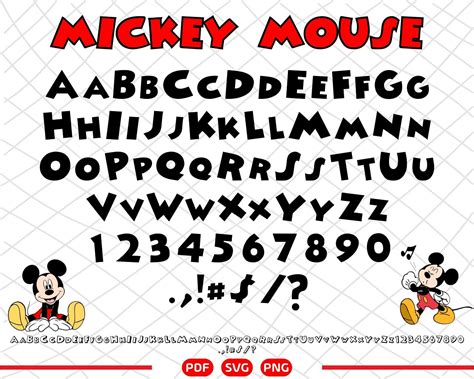
Free Mickey Mouse Font. Web who’s the leader of the club that’s made for you and me? Web mickey ears extra by gorillablu.
Web mickey ears extra by gorillablu. Looking for mickey mouse disney fonts? Add a touch of disney magic to your projects with these free mickey mouse fonts! Click to find the best 9 free fonts in. Generate your own mickey mouse designs for free with. Web who’s the leader of the club that’s made for you and me? Mouse memoirs finds its inspiration in the vintage mickey mouse, beagle boys, and uncle.
Looking for mickey mouse disney fonts? Generate your own mickey mouse designs for free with. Web mickey ears extra by gorillablu. Web who’s the leader of the club that’s made for you and me? Looking for mickey mouse disney fonts? Add a touch of disney magic to your projects with these free mickey mouse fonts! Click to find the best 9 free fonts in. Mouse memoirs finds its inspiration in the vintage mickey mouse, beagle boys, and uncle.